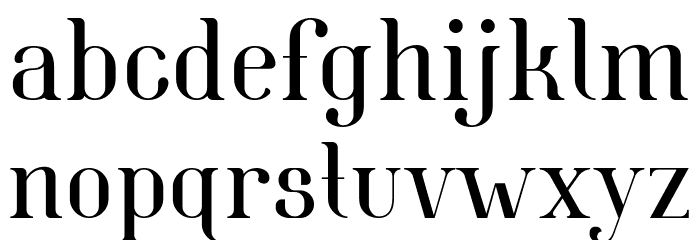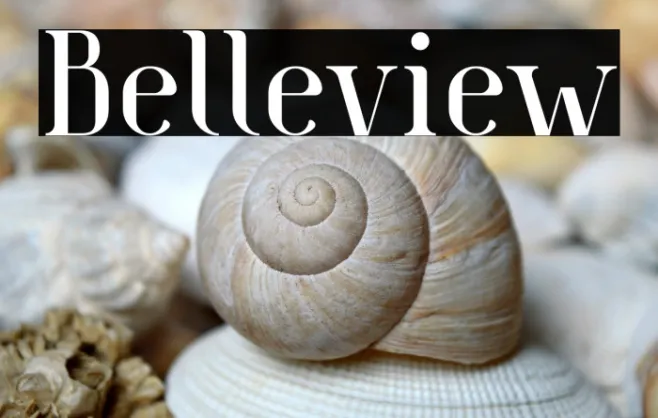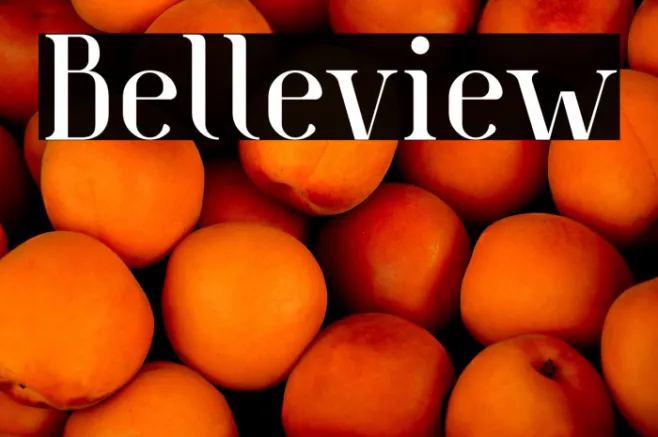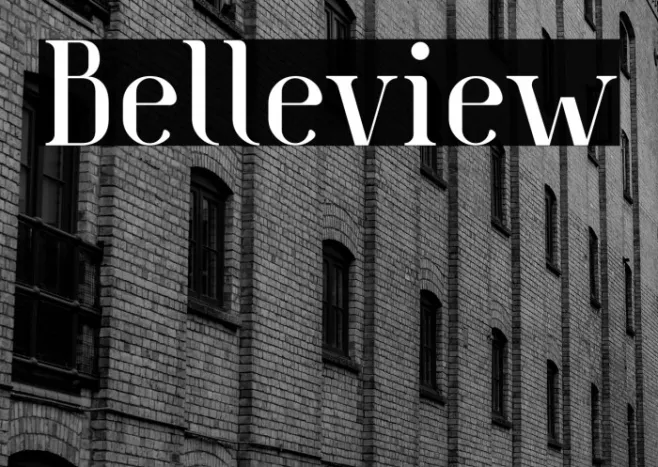
Belleview Font
This font features a classic serif style with a modern twist, characterized by its elegant and elongated letterforms. The serifs are prominent and slightly curved, adding a touch of sophistication. The uppercase letters are tall and commanding, while the lowercase letters maintain a consistent flow with a slight contrast in stroke thickness. The numerals are distinct and align well with the overall design, making them easy to read. Special characters are thoughtfully designed, maintaining the font's cohesive aesthetic. This font is versatile, suitable for both formal and contemporary applications.
A modern serif font with elegant, elongated letterforms and prominent serifs.
- Font: Belleview
- Proposed Projects: Ideal for branding, editorial design, book covers, and elegant invitations.
- Category: Serif